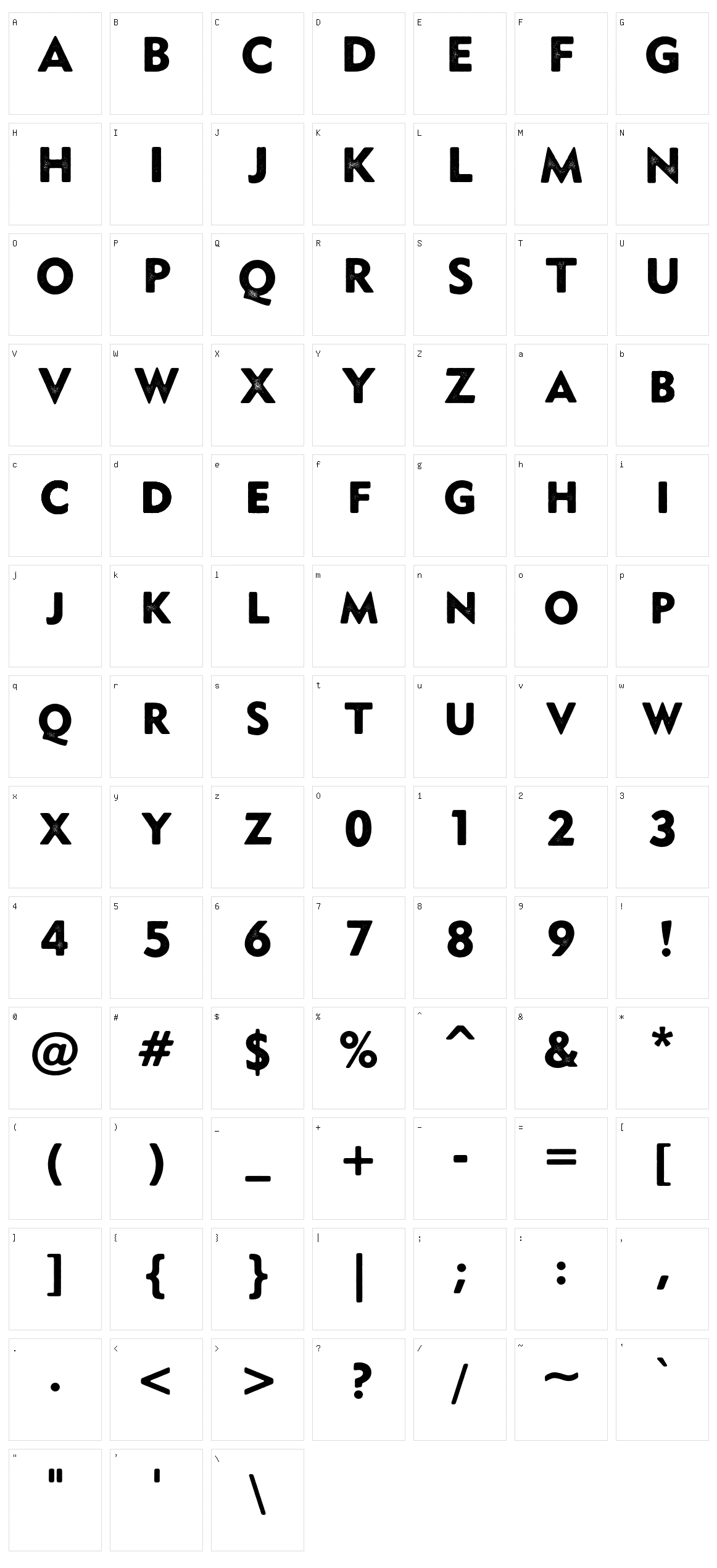
Monesque
Designed by: Cumberland Fontworks
Category: Eroded
MONESQUE
A Font by S. John Ross
A warmly-stressed bit of early-20th century visual style, MONESQUE is a full-U.S.-Keybord caps font with a couple of extras throw in for kicks, for Risus, and for Uresia. Enjoy!